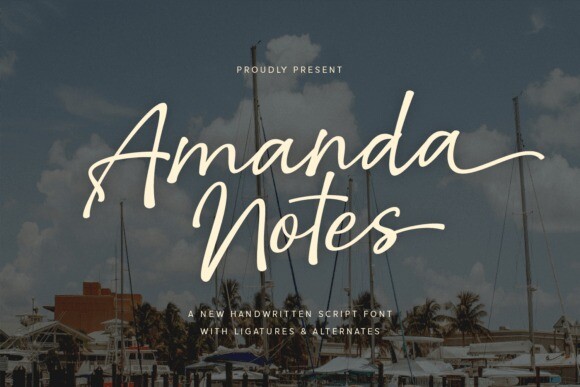
Amanda Notes Font
Amanda Notes Font is a charming handwritten script font. It features smooth, flowing letters that look natural and personal. The font includes ligatures, which are special combinations of letters that connect beautifully, as well as alternate styles for added variety. Perfect for invitations, notes, and creative projects, Amanda Notes adds a warm, friendly touch to your designs.